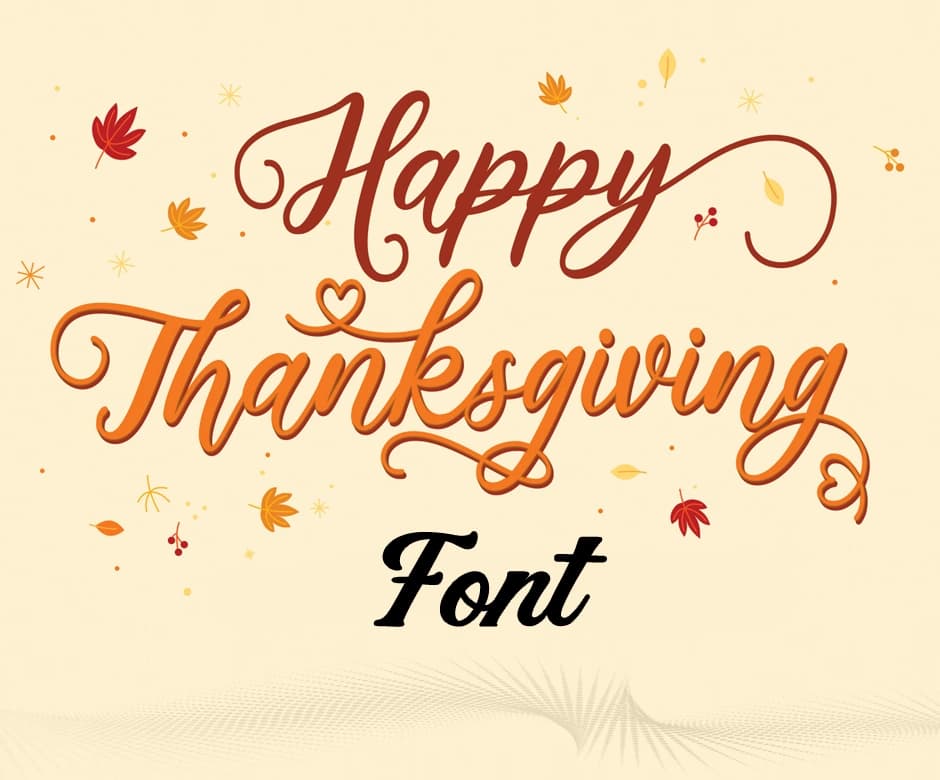
Thanksgiving is a time of warmth, gratitude, and togetherness, and the right font can instantly set that mood in your designs. Whether you’re creating greeting cards, festive prints, or digital graphics, typography plays a key role in expressing the spirit of the season.
From elegant scripts to rustic serifs and modern sans-serifs, each font style brings a unique personality to your message. This guide will help you choose the perfect Happy Thanksgiving font, ensuring your designs feel inviting, seasonal, and visually memorable across both print and digital platforms.
Thanksgiving design aesthetics are rooted in feelings of warmth, gratitude, and seasonal comfort. Visual themes often draw inspiration from autumn, harvest elements, and family gatherings, using colors like burnt orange, deep red, mustard yellow, and earthy browns.
Typography, especially the choice of a Happy Thanksgiving font, plays an important role in building and sharing these emotions.
Traditional serif and handwritten fonts bring out feelings of nostalgia and sincerity, while modern styles add a fresh and up-to-date touch.
The key is balance.
Fonts should feel welcoming and readable while complementing seasonal imagery. Whether classic or modern, effective Thanksgiving designs aim to feel heartfelt, cozy, and celebratory.
The right font choice can strengthen your message and make your Thanksgiving design feel more intentional and visually appealing. Exploring different font categories also helps designers create a clear hierarchy, better readability, and a consistent seasonal mood across all formats.
Script and handwritten fonts convey warmth, gratitude, and a personal touch. They are ideal for Thanksgiving cards, invitations, and heartfelt messages where emotion matters most.
Serif fonts reflect tradition, elegance, and heritage. They work well for formal cards, printed menus, posters, and designs that lean toward a classic Thanksgiving feel.
Sans-serif fonts offer a clean, modern, and friendly appearance. These fonts are best suited for digital designs, websites, social media graphics, and mobile-friendly layouts.
Display fonts add personality and seasonal flair to Thanksgiving designs. Styles such as rustic, playful, bubble text, fire text, or subtle glitch text are great for headlines, posters, and creative digital visuals when used sparingly.
Stylized fonts can add energy and personality to your Thanksgiving designs, making your text stand out on cards, prints, and digital graphics.
Using playful or unique text effects helps capture attention and adds a festive, celebratory feel to your designs.
Cursive fonts are elegant and flowing, adding a personal, handwritten touch to your Thanksgiving messages.
Cursive Generator can help you turn standard text into stylish, script-like typography effortlessly.
Freaky fonts are quirky and unusual, giving your text a creative or spooky twist. They are great for playful designs or standout titles. You can use Freaky Font Generator to experiment with different quirky styles.
Glitch texts create a distorted, digital effect that adds modern, edgy vibes to your designs. For this effect, a Glitch Text Generator can transform your text into glitchy, visually striking typography.
Here are some useful tips for using the happy Thanksgiving font the right way:
Choosing the right Happy Thanksgiving font can transform your Thanksgiving designs, making cards, prints, and digital graphics feel warm, festive, and memorable. From elegant scripts and classic serifs to playful bubble letters, fire text, and glitch effects, each style brings its own personality to your message.
By understanding design aesthetics, pairing fonts thoughtfully, and using stylized effects carefully, you can create visually appealing and heartfelt designs. With these tips and creative ideas, your “Happy Thanksgiving” messages are sure to leave a lasting impression.
Script and handwritten fonts work best for Thanksgiving cards because they add warmth and a personal touch. Serif fonts are also great if you want a more traditional, elegant look.
Yes, but use them sparingly for headlines or accents to maintain readability. Overusing stylized fonts in print can make text hard to read.
Absolutely, most fonts work well across digital platforms if you check readability. Make sure the text size and contrast are appropriate for screens.